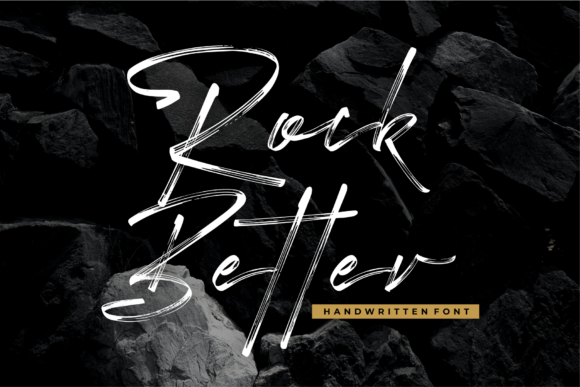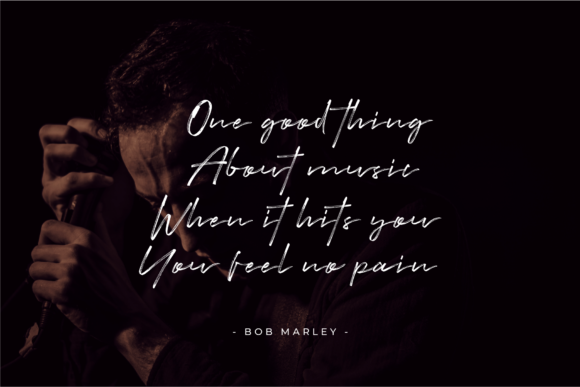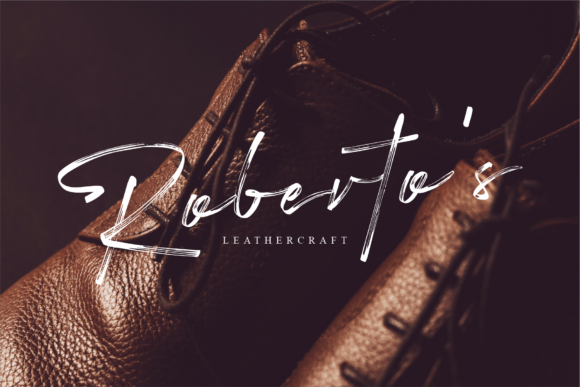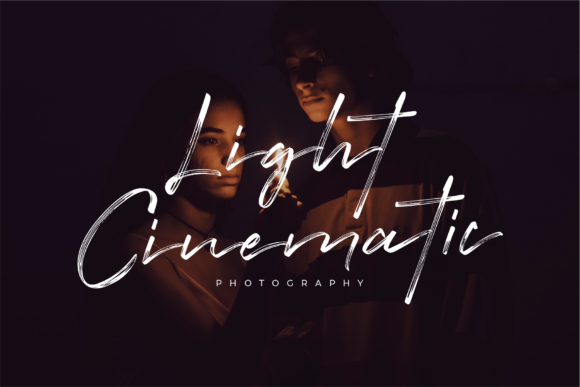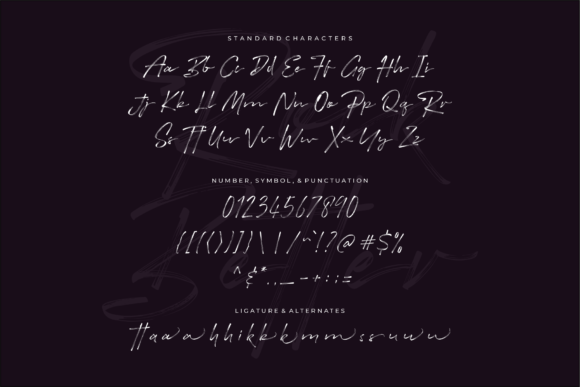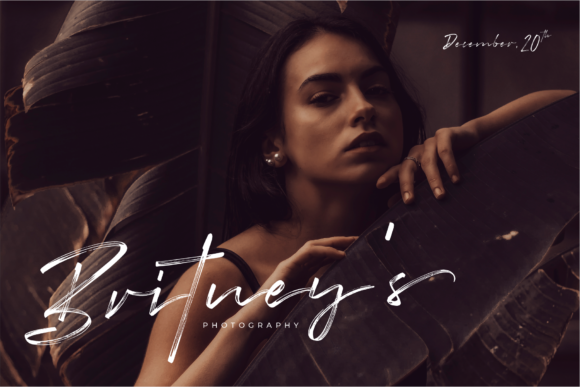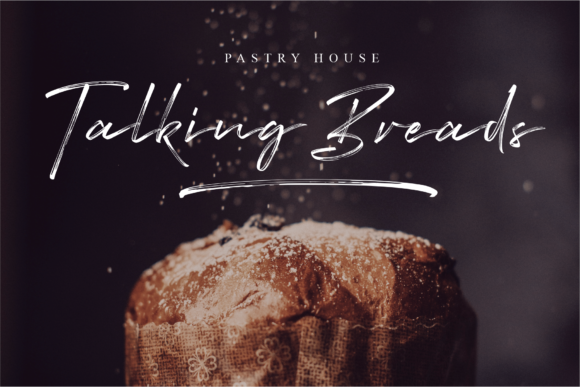
Rock Better Font
About Rock Better Font
Rock Better is a cool, flowing and brushed script font. Trendy and stylish, this font will elevate each of your creations. Rock Better is PUA encoded which means you can access all of the glyphs and swashes with ease!